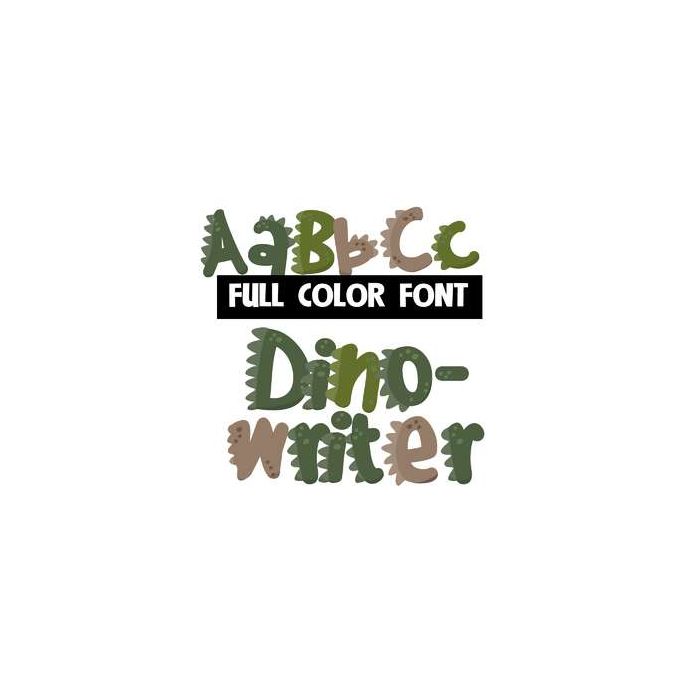
This full-color font looks very reptilian with spots and dino-like spikes on their backs. This font works best for titles, displays, posters and more. Please note color fonts will show as black in non compatible programs. This font type is compatible with Silhouette Studio.